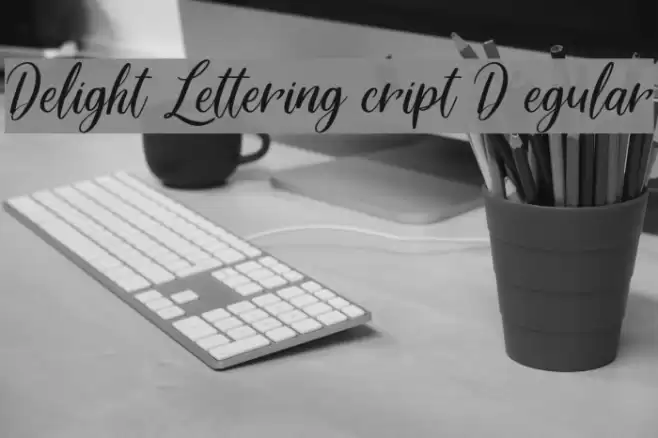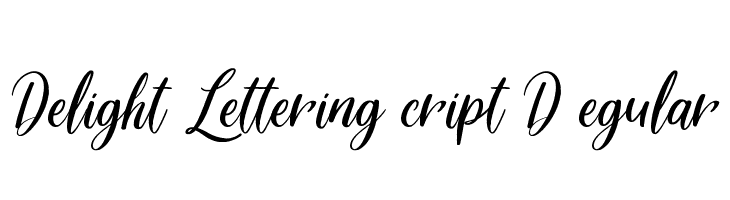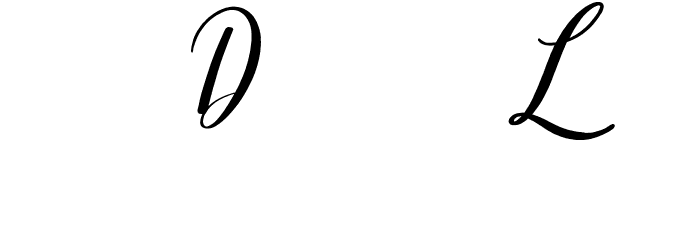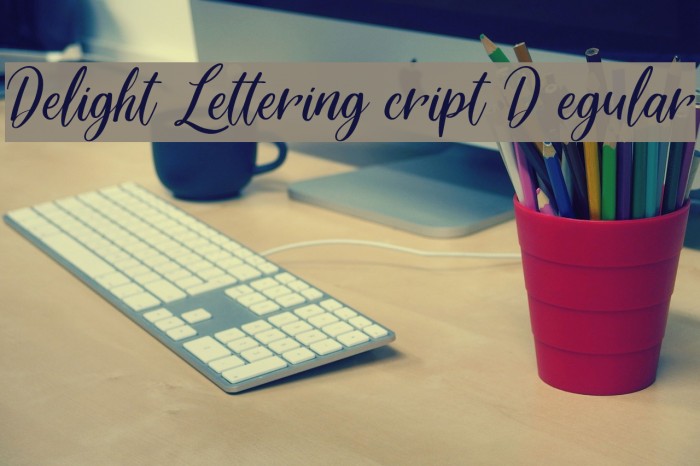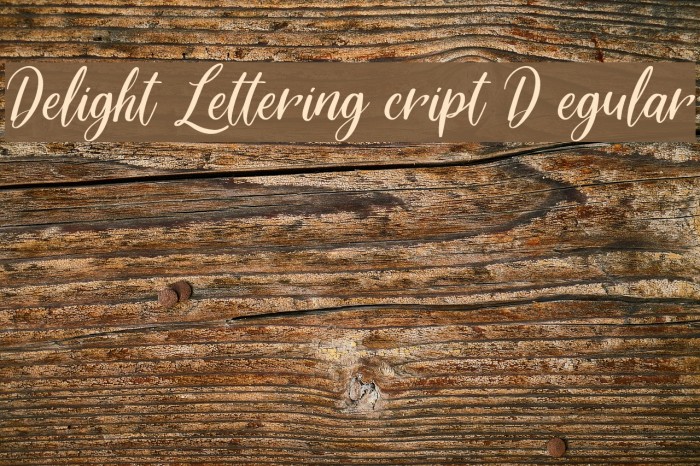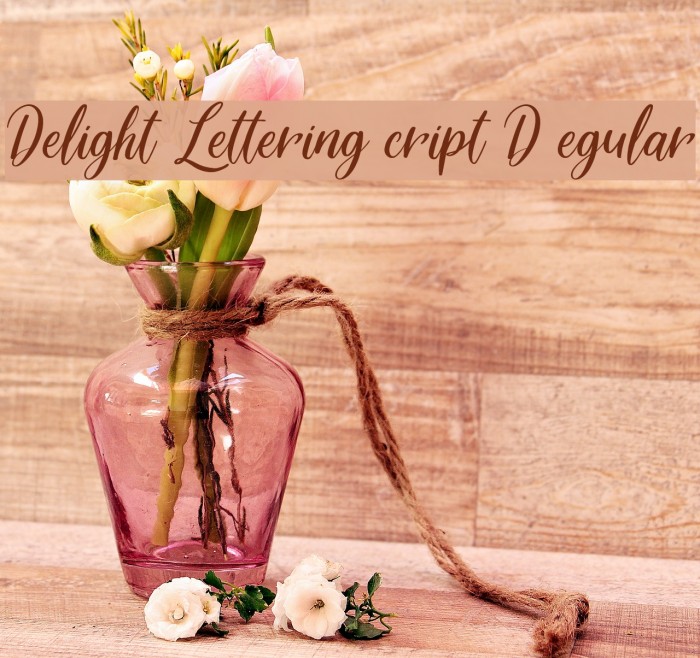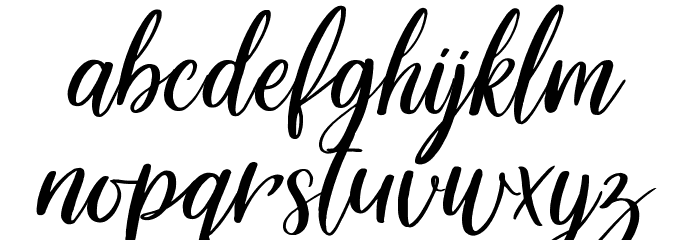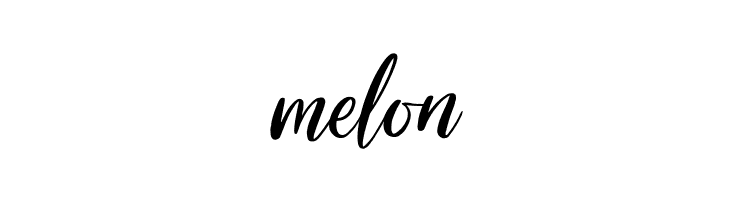
Delight Lettering Script DEMO Regular Font
Delight Lettering Script DEMO Regular Description
This script font exudes elegance and fluidity, characterized by its smooth, flowing strokes and graceful curves. The letters are interconnected, creating a seamless and harmonious appearance. The uppercase letters are particularly ornate, with intricate swirls and loops that add a touch of sophistication. The lowercase letters maintain a consistent style, with a slight slant that enhances the script's dynamic nature. The font's overall aesthetic is both classic and contemporary, making it versatile for various design applications. Its legibility is maintained despite the decorative elements, ensuring readability in both small and large sizes.
An elegant and fluid script font with interconnected, graceful strokes from Uncategorized fonts.
- Proposed Projects: Ideal for wedding invitations, elegant branding, greeting cards, and decorative quotes.
- Overall Style: Elegant, Classic
- Use Case: Logos, Invitations, Decorative text